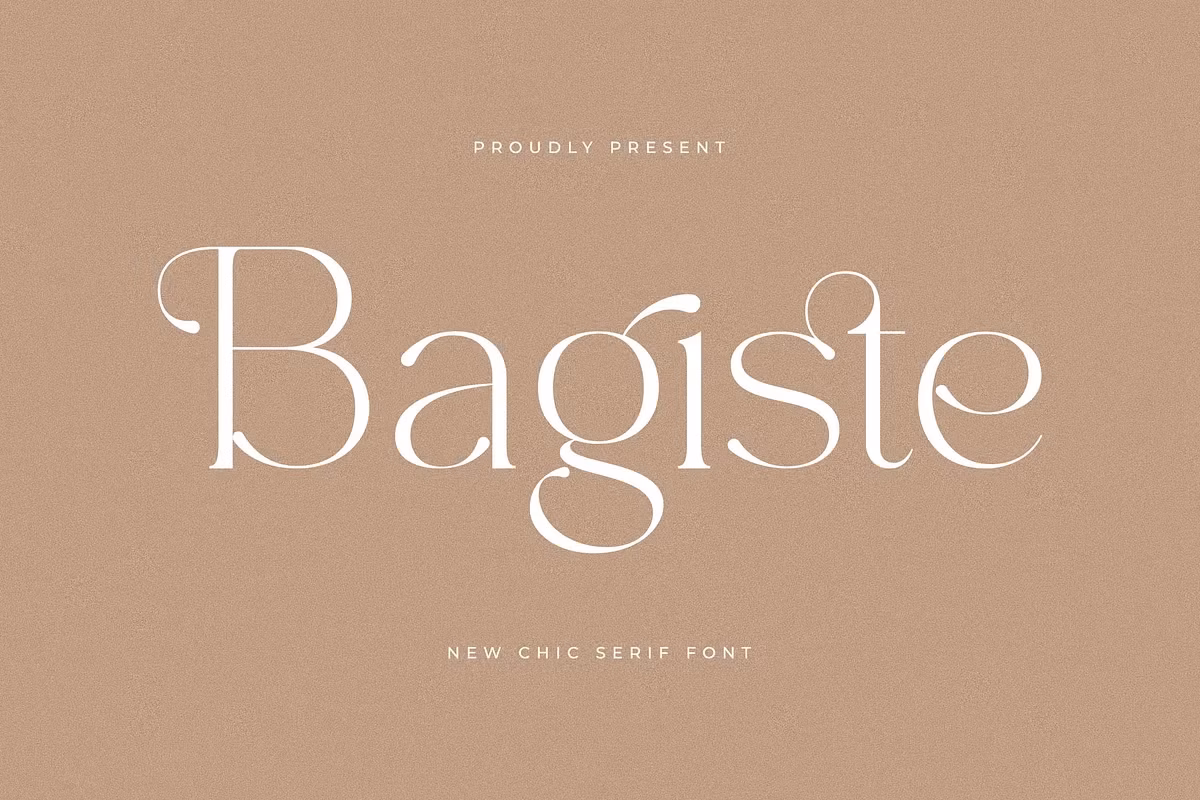
Bagiste New Chic Serif Font Free Download
Bagiste New Chic Serif Font Free Download is an elegant and modern typeface designed to bring sophistication and style to your designs. With its sharp serifs and clean lines, this font is perfect for luxury branding, high-end fashion, editorial layouts, and professional marketing materials. The contemporary yet classic design ensures your projects maintain a sense of refined elegance while remaining modern and fresh. Whether you're designing a logo, working on a stylish magazine, or creating premium promotional materials, Bagiste New Chic Serif Font Free Download gives you the opportunity to test its polished look in personal projects before purchasing a commercial license. Add a touch of chic sophistication to your designs with this beautifully crafted serif font.